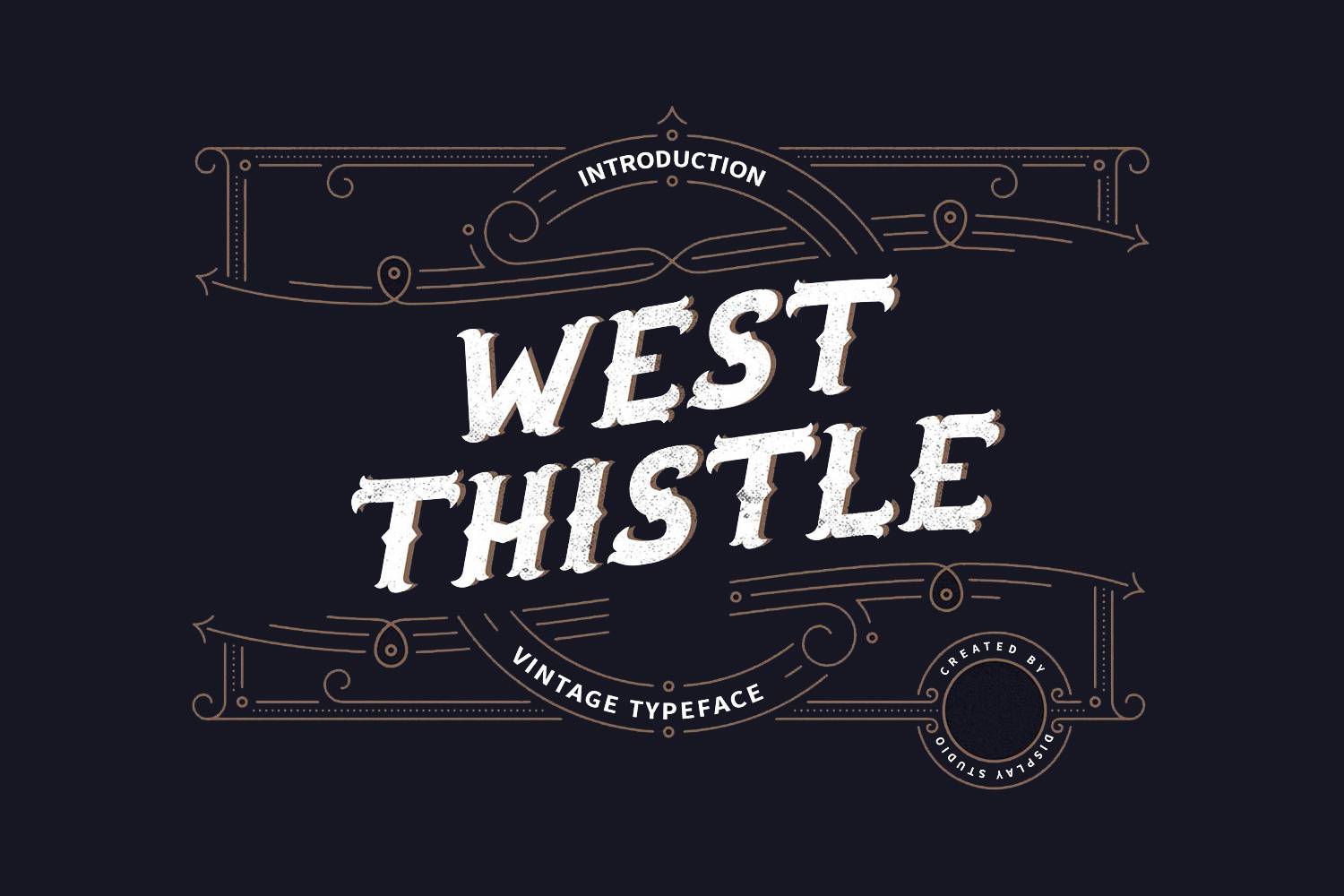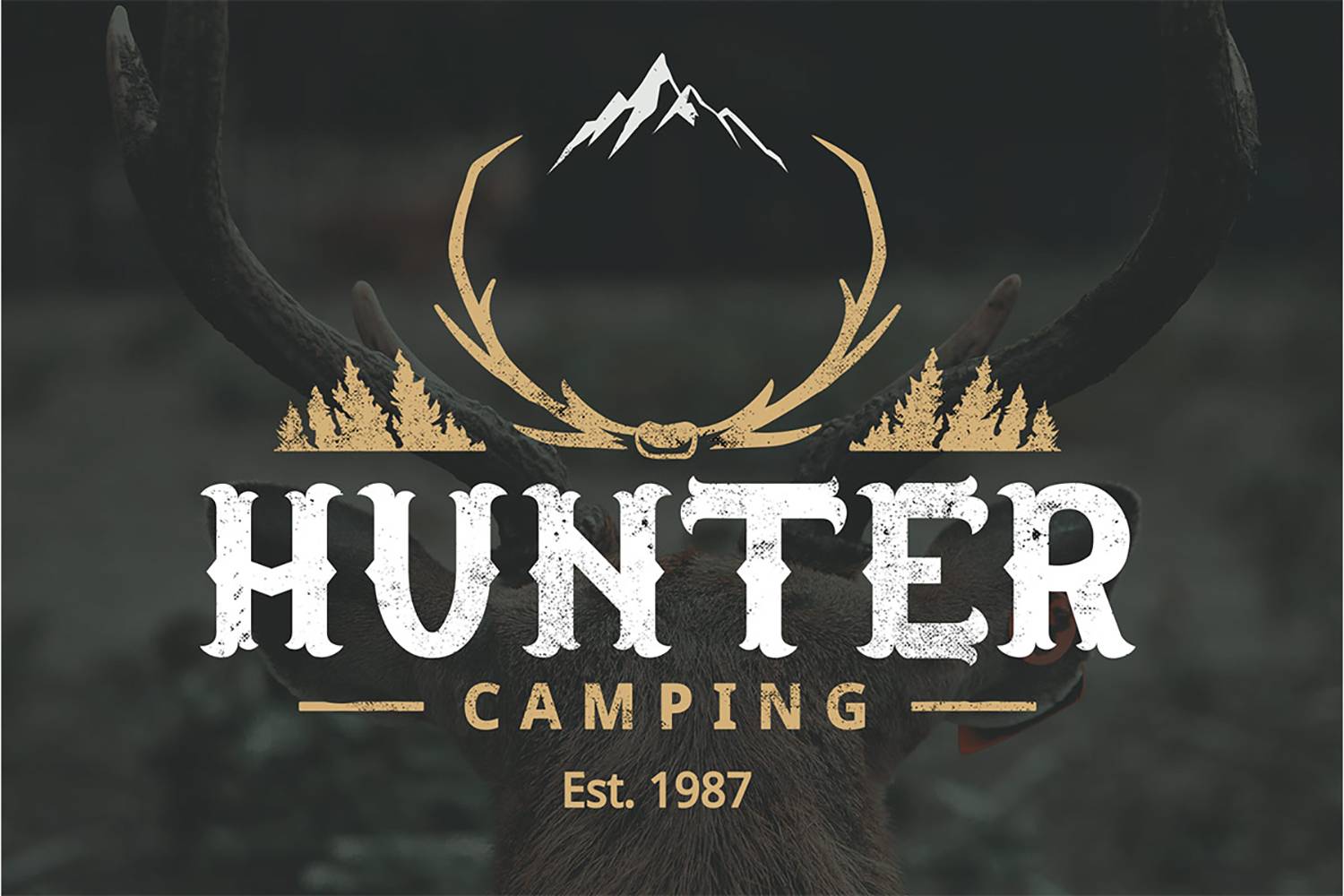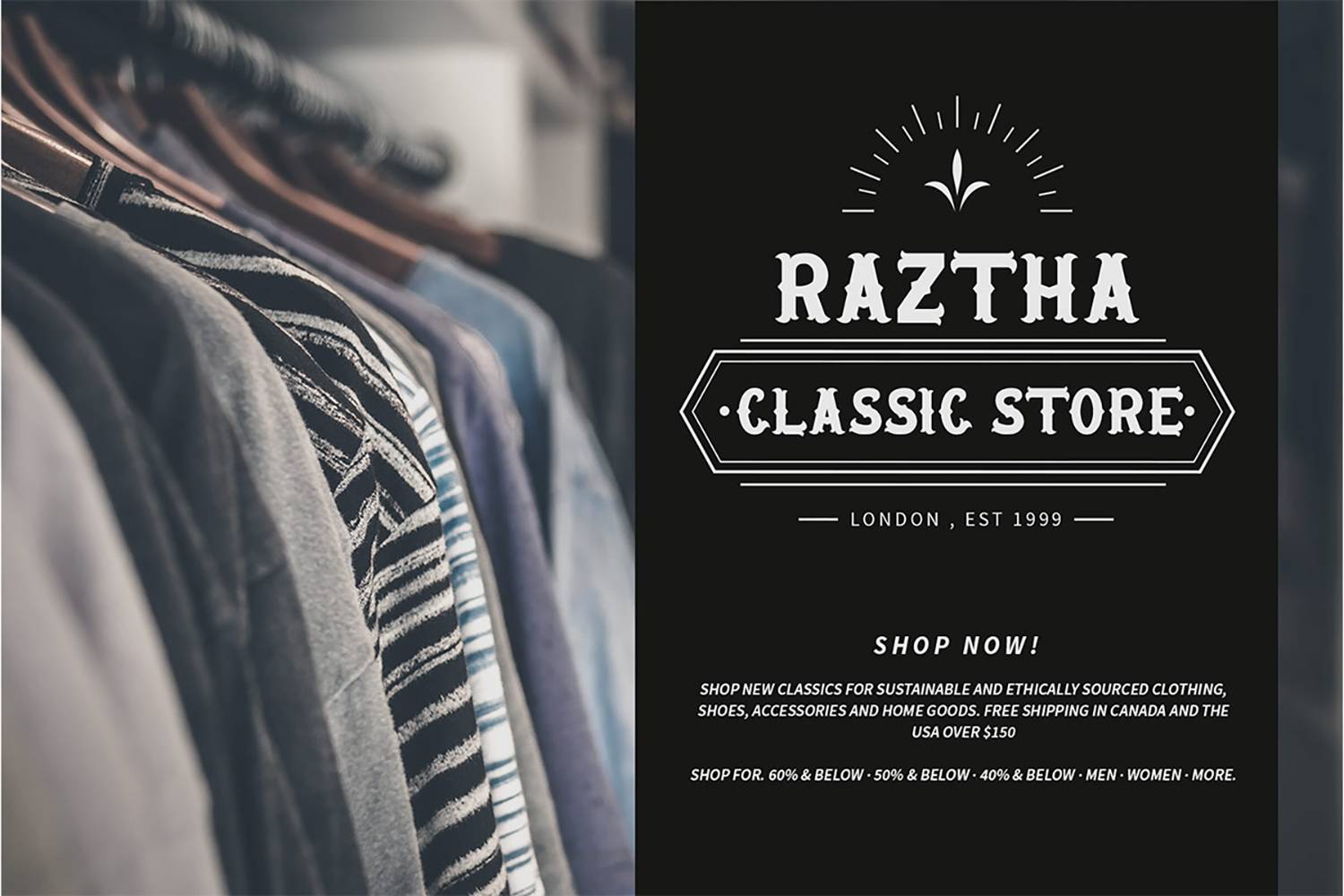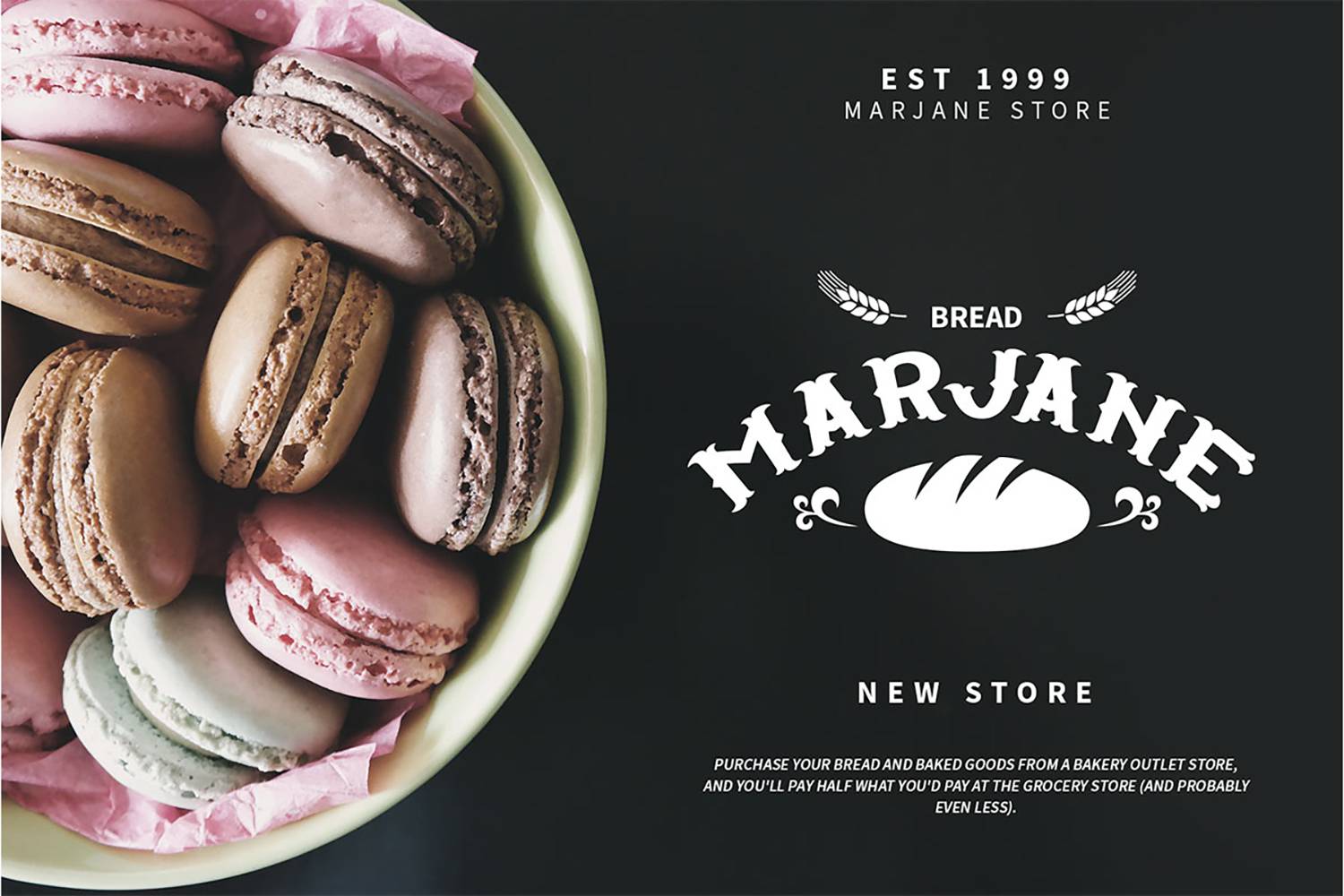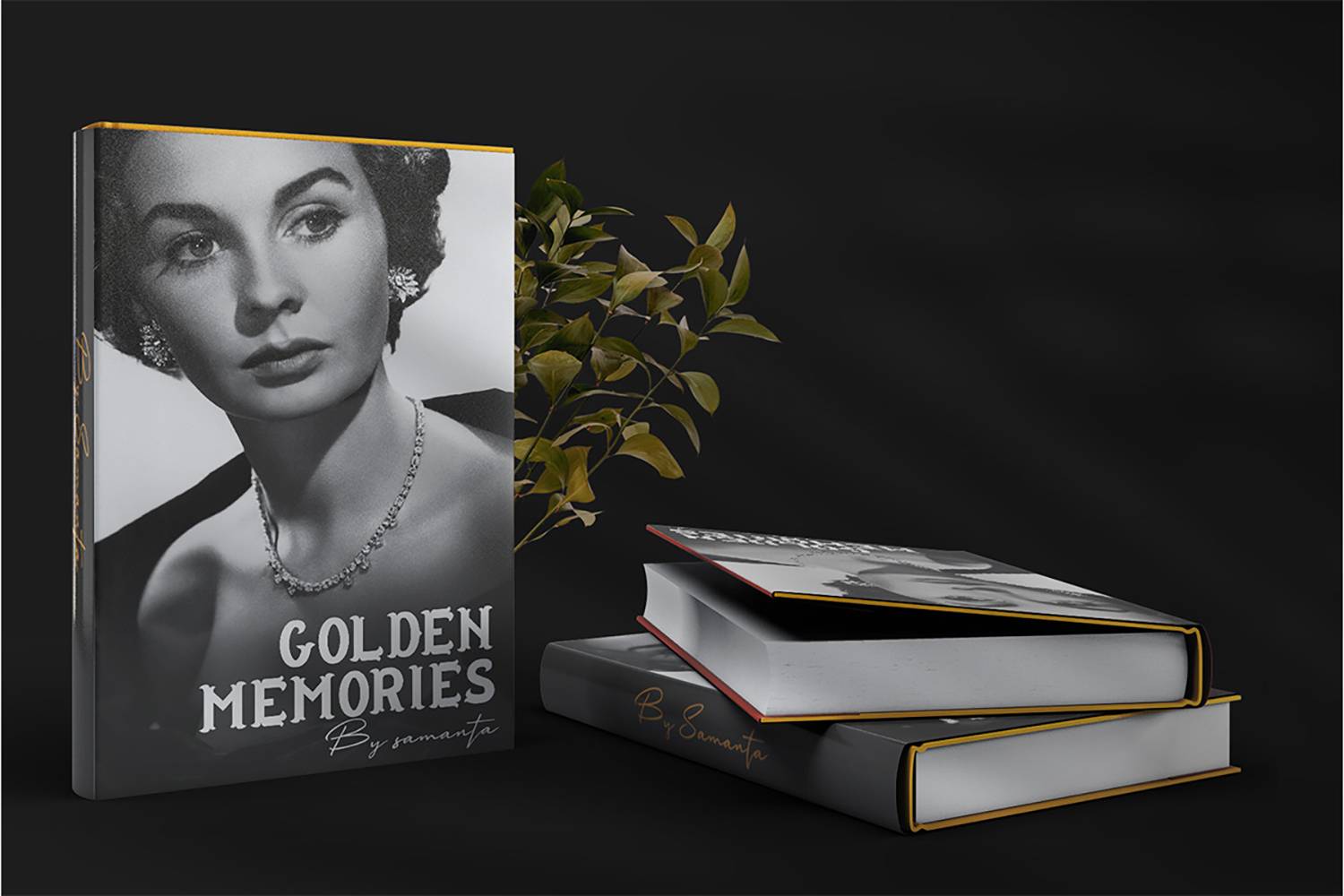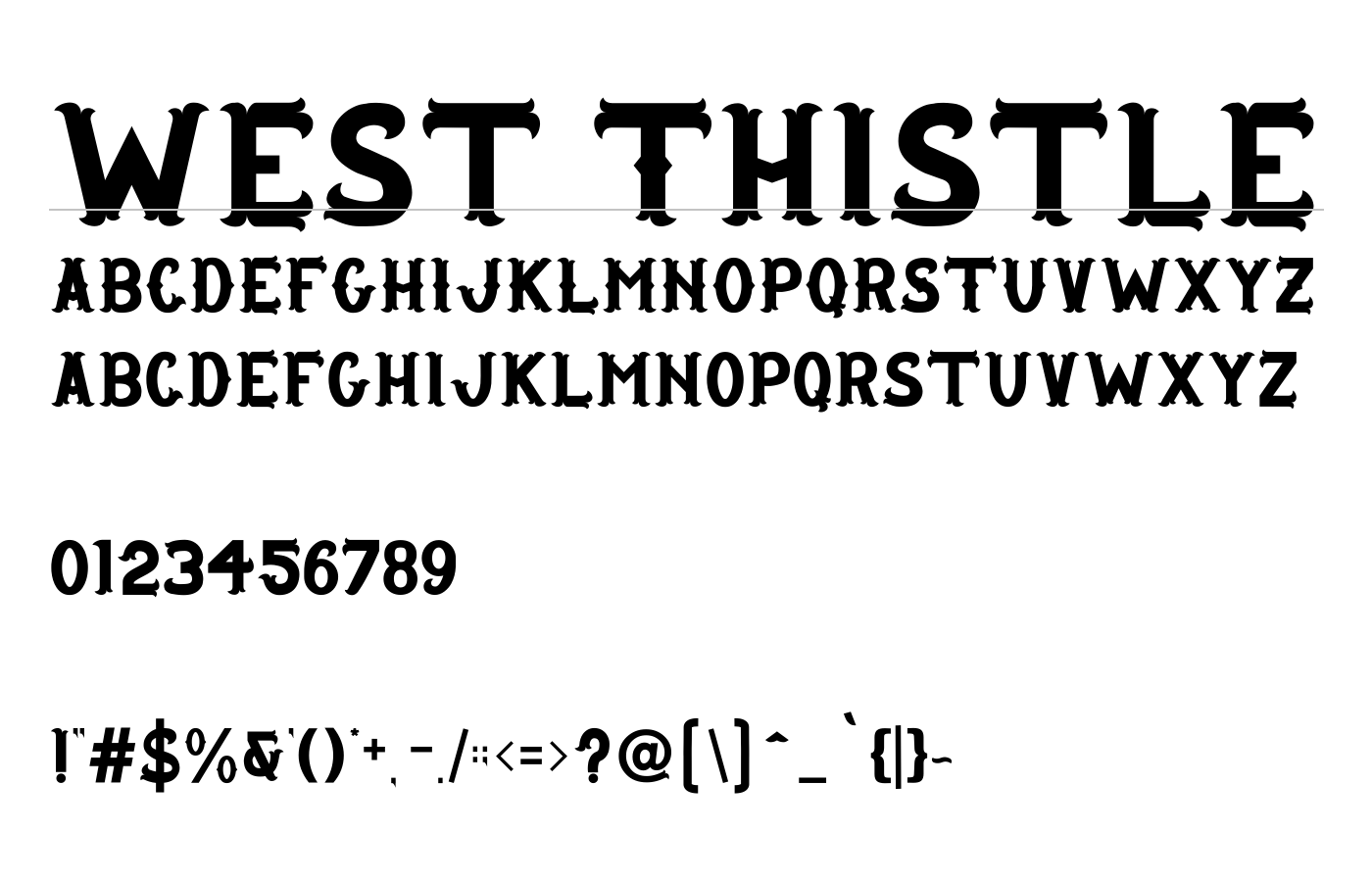
West Thistle is a bold, decorative serif font with a strong vintage western style, characterized by its thick, solid strokes and unique, ornamental serifs that resemble classic woodblock lettering. Its distinctive, playful flair makes it well-suited for eye-catching headlines, posters, and branding projects that want to evoke a rugged, adventurous, or old-fashioned mood. This font works best where personality and impact are key, such as logos, packaging, and themed editorial designs.
West Thistle Font
About West Thistle Font
| Font family | West Thistle Font |